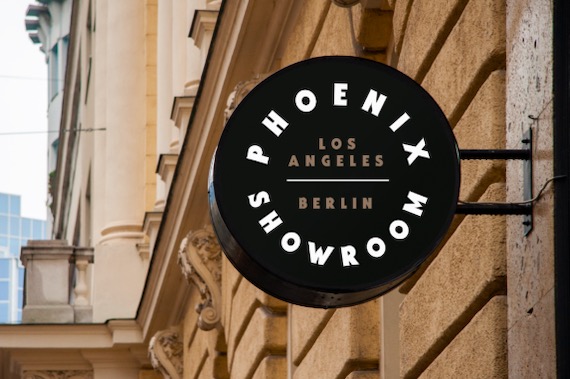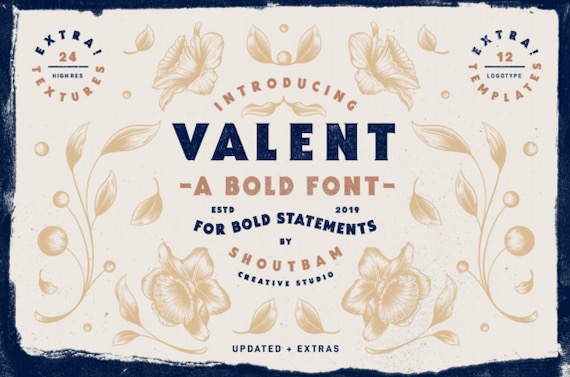
Valent is a classy modern bold gorgeous sans serif font that was created and shared by Shoutbam along with a classic, yet contemporary look. Get inspired by this stunning typeface, and turn any design project into a stand-out!
Valent Sans Serif Font